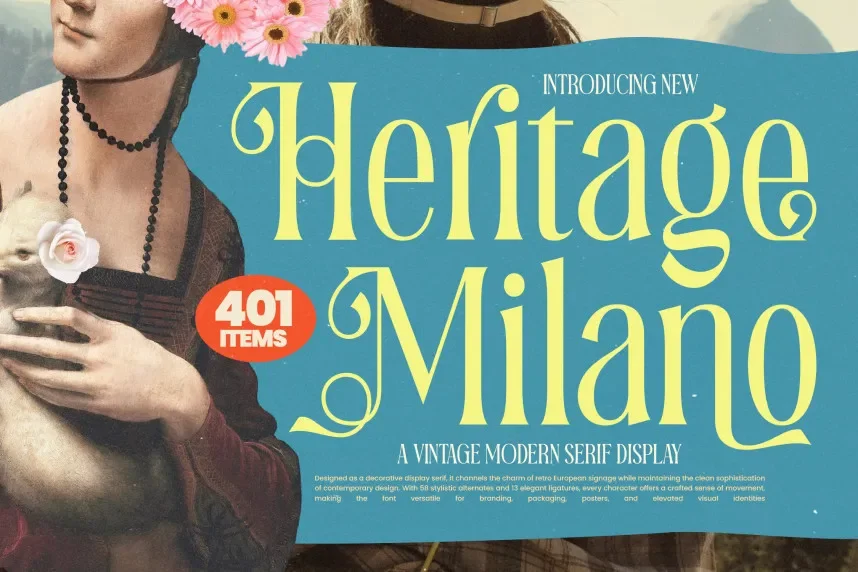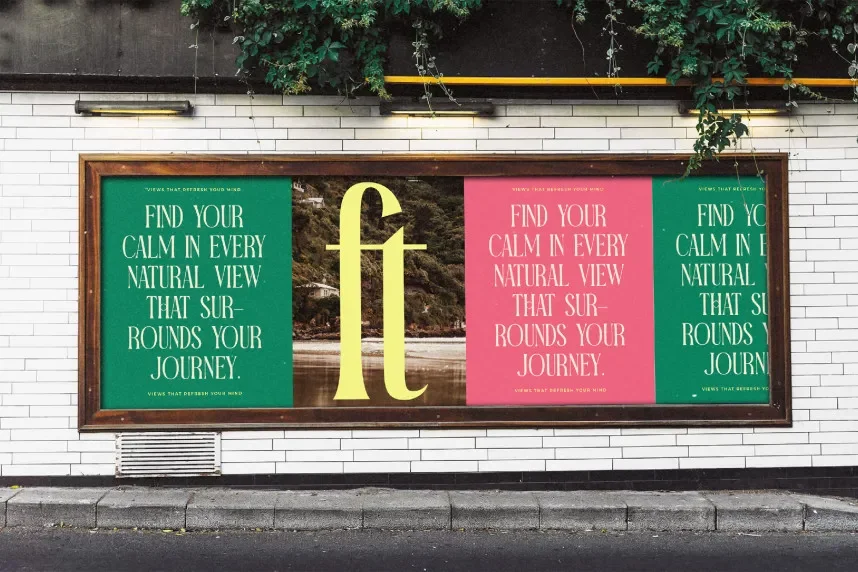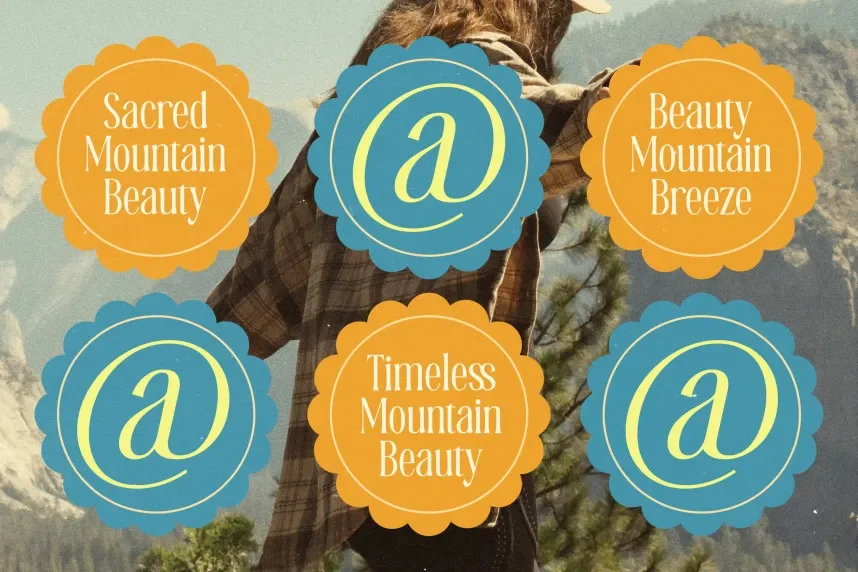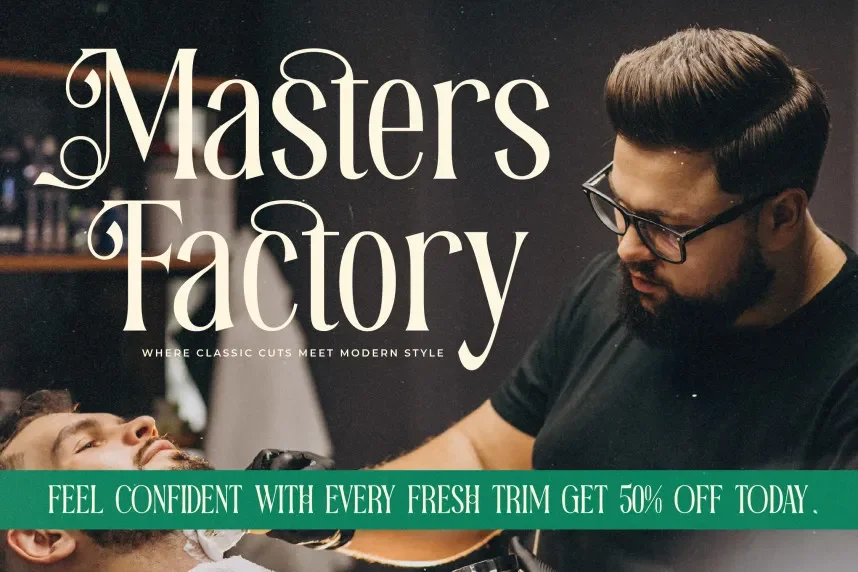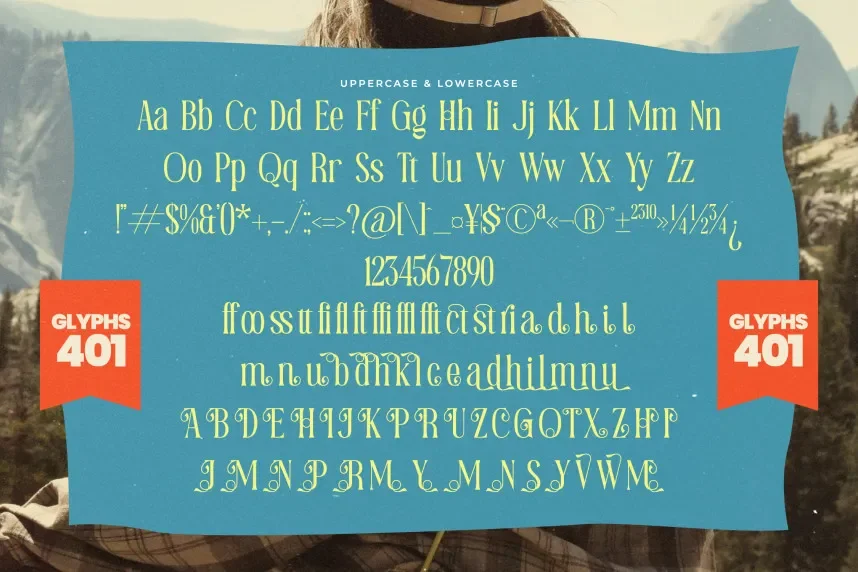
Heritage Milano Font is a serif typeface designed for projects that require strong brand consistency and traditional readability. Designers often face problems when classic serif fonts look outdated or too decorative. Heritage Milano solves this by using balanced proportions and clean serif details suitable for modern branding.
This font belongs to the serif category. Its letterforms feature moderate stroke contrast, well-defined serifs, and stable vertical alignment. The spacing between characters supports long text blocks, making it usable beyond headlines. Uppercase characters appear formal, while lowercase letters remain clear and readable in digital and print layouts.
Heritage Milano works well for branding, editorial layouts, book covers, website headings, and print materials such as brochures. It is also suitable for premium logos where a traditional tone is required. Designers often pair it with a neutral sans-serif font for body text to maintain hierarchy and balance.